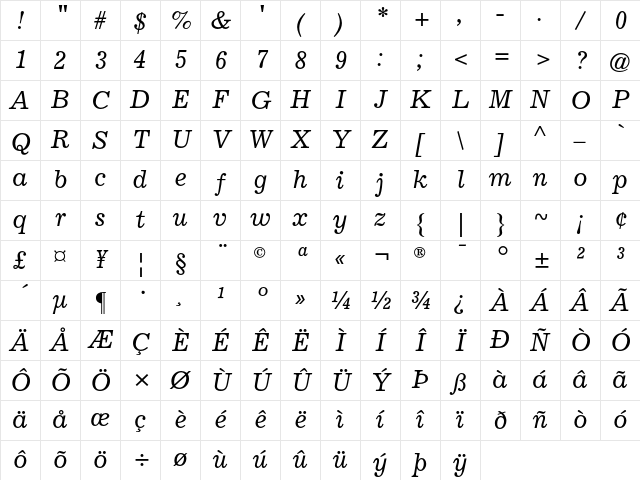
News AT Number Fourteen is a composed and adaptable typeface that performs quietly and consistently across a wide range of design contexts. The slanted form adds forward momentum and visual energy.